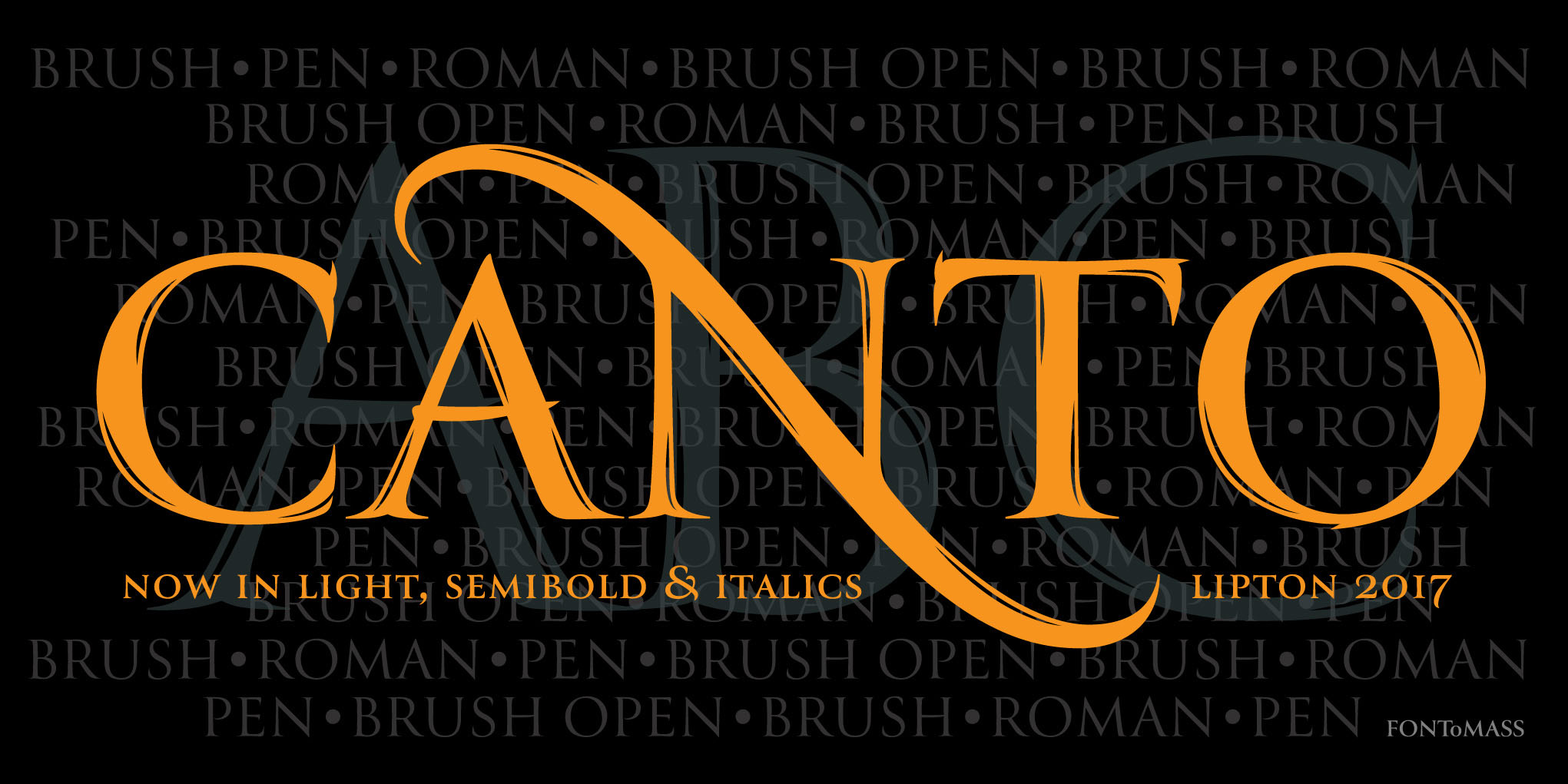
Canto Font
Canto Font is perfect for opera house branding, classical music venues, poetry publication layouts, vocal performance marketing, liturgical music materials, cultural conservatory signage, artistic recital promotions, and elegant concert hall communications. This melodious typeface excels in applications where musical sophistication and vocal artistry are essential for creating harmonious and culturally rich brand experiences that celebrate the beauty of human voice and musical expression.
What makes Canto Font truly exciting is its lyrical embodiment of vocal beauty and musical eloquence that captures the flowing grace of operatic performance and the emotional depth of sung poetry. The font features melodic letterforms with rhythmic curves and harmonic character details that mirror the natural flow of vocal lines and the sophisticated phrasing of classical singing. Its musical personality and artistic character create an immediate sense of cultural refinement and vocal excellence that resonates with audiences seeking authentic classical music experiences and artistic sophistication. The typeface's operatic heritage and vocal appeal make it perfect for brands wanting to convey artistry, cultural depth, and connection to the timeless tradition of vocal performance and musical storytelling.
The Canto Font family includes regular and ornamental versions, complemented by musical alternates and opera-inspired decorative elements. The font offers comprehensive character sets with musical symbols, vocal ligatures, and classical styling details that enhance its artistic aesthetic. Additional graphic elements including musical flourishes, operatic motifs, vocal ornaments, and harmonic patterns provide designers with complete branding tools rooted in classical music tradition and vocal performance culture.